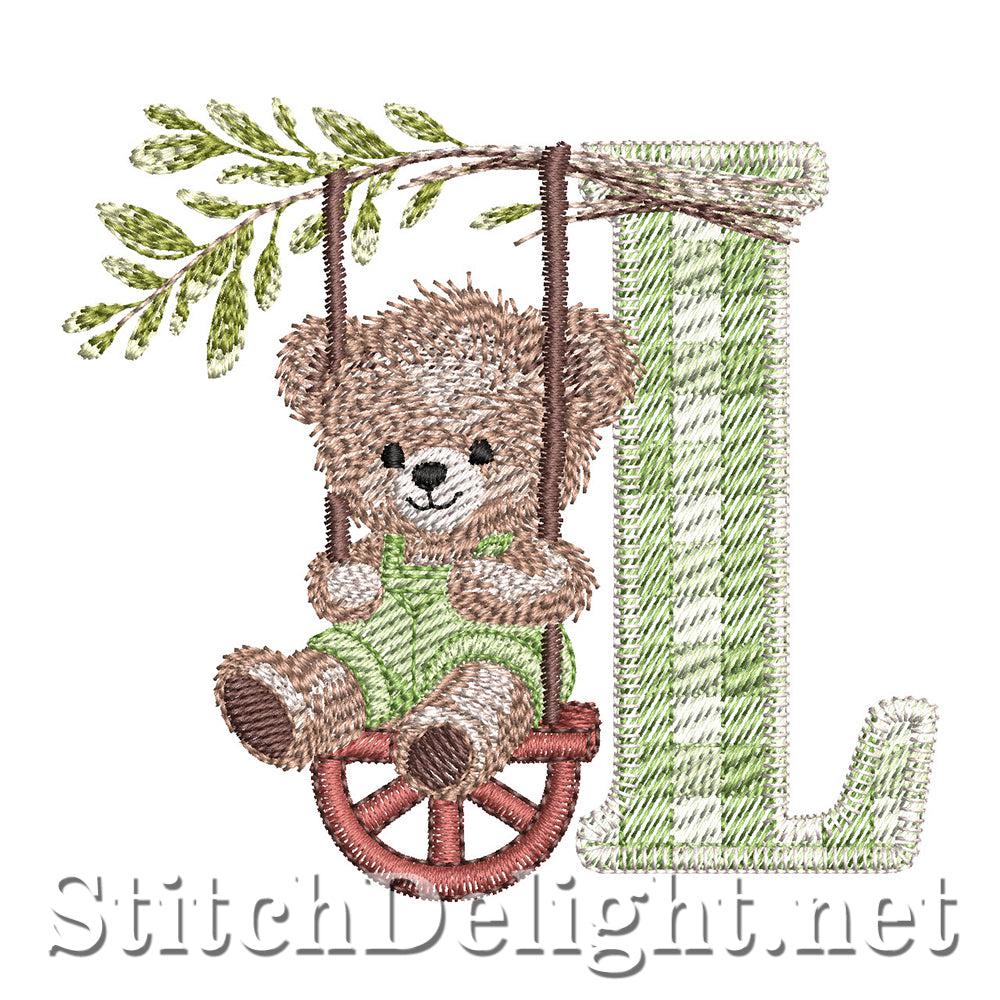
SDS4479 Country Teddy Font L
Country Teddy font with a letter height of just over 3" making it ideal for your 4x4" hoop.
This is a single letter of the alphabet.